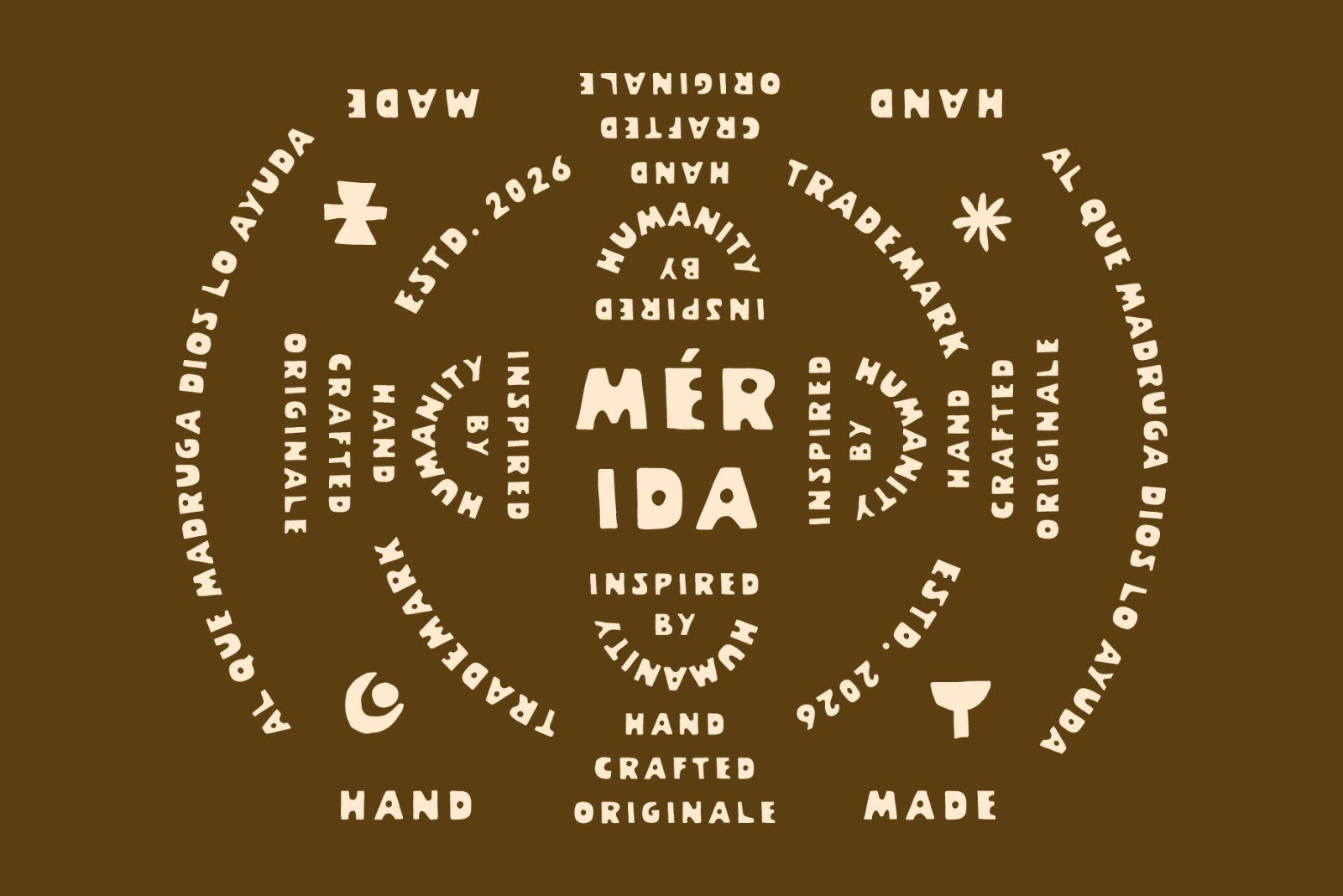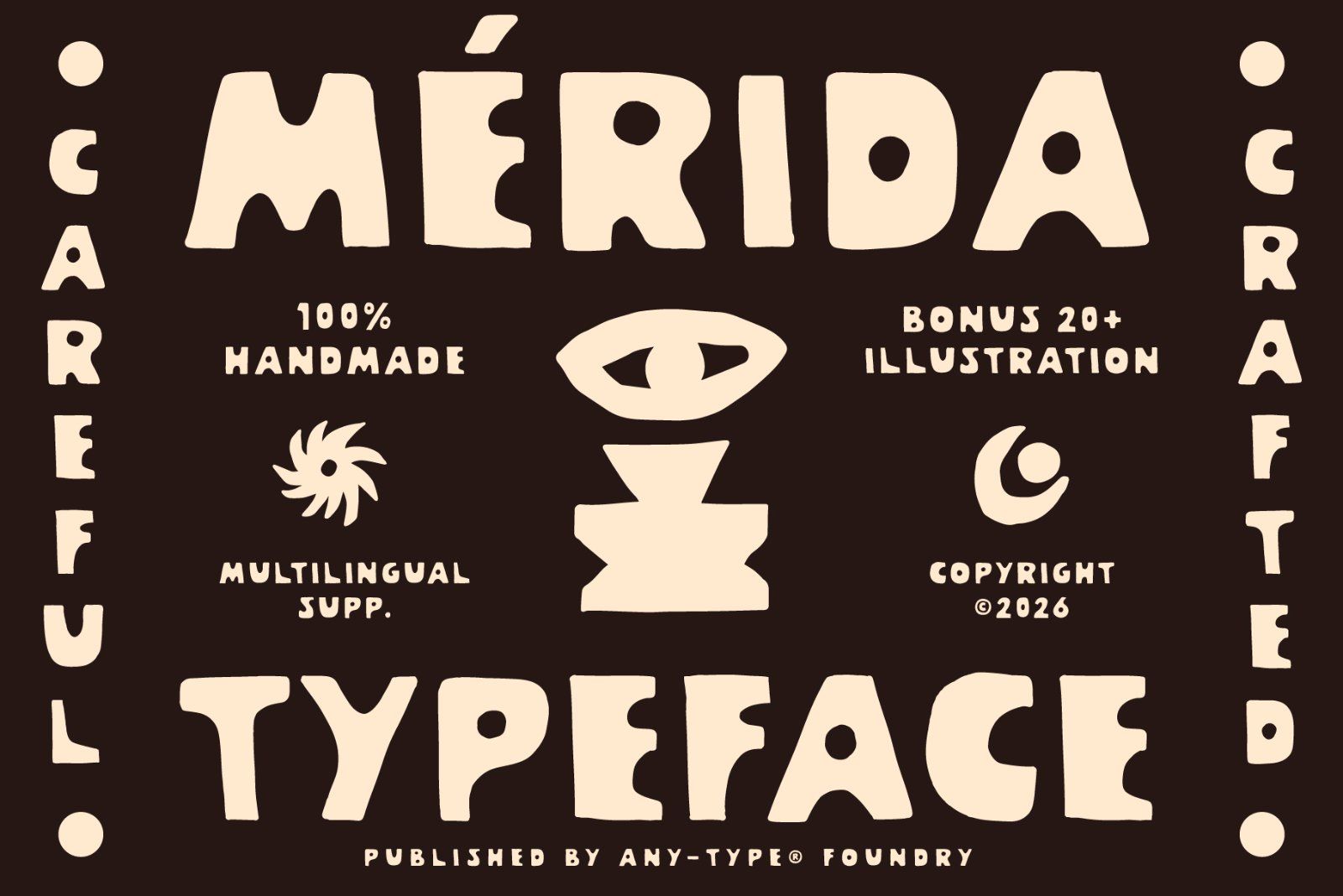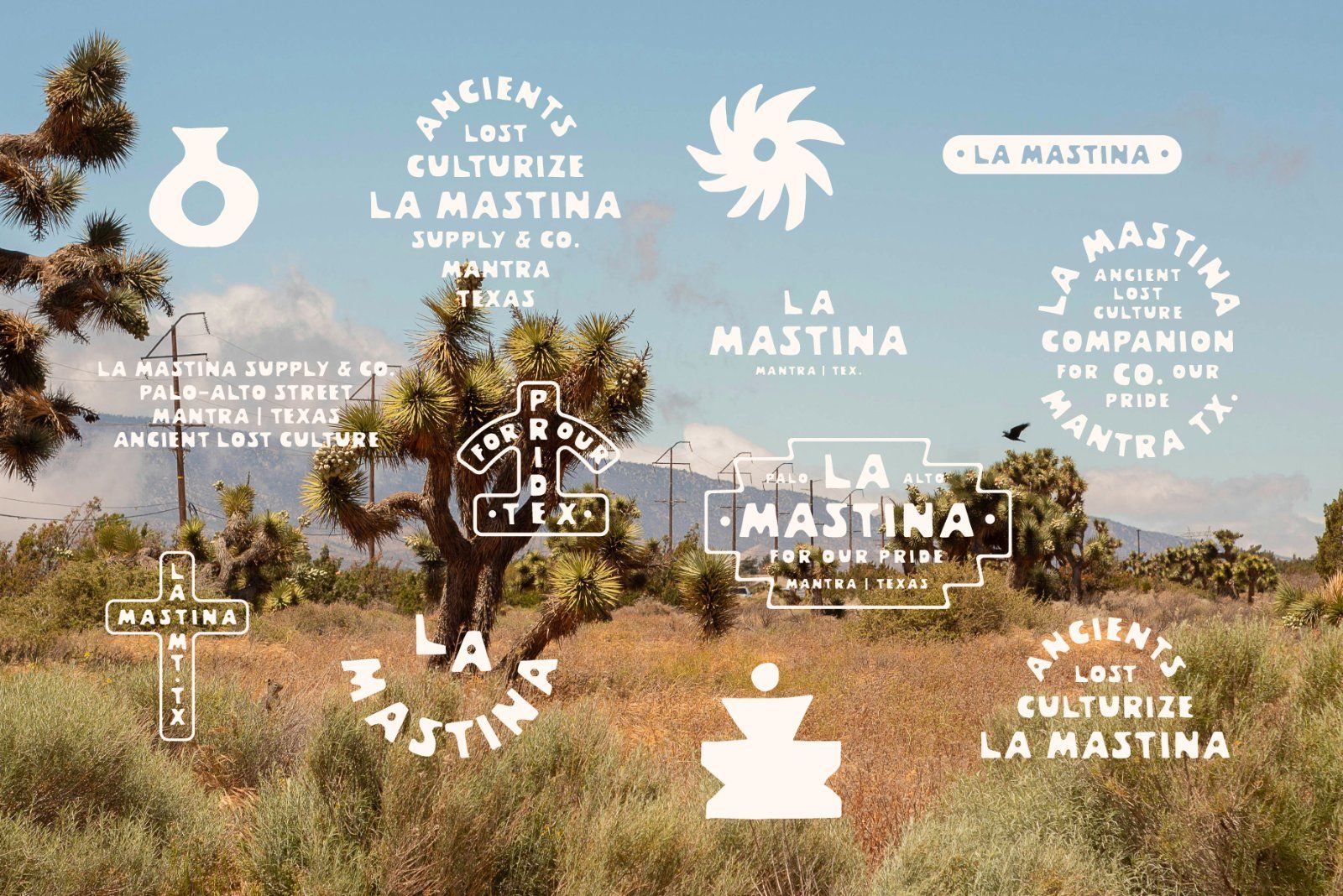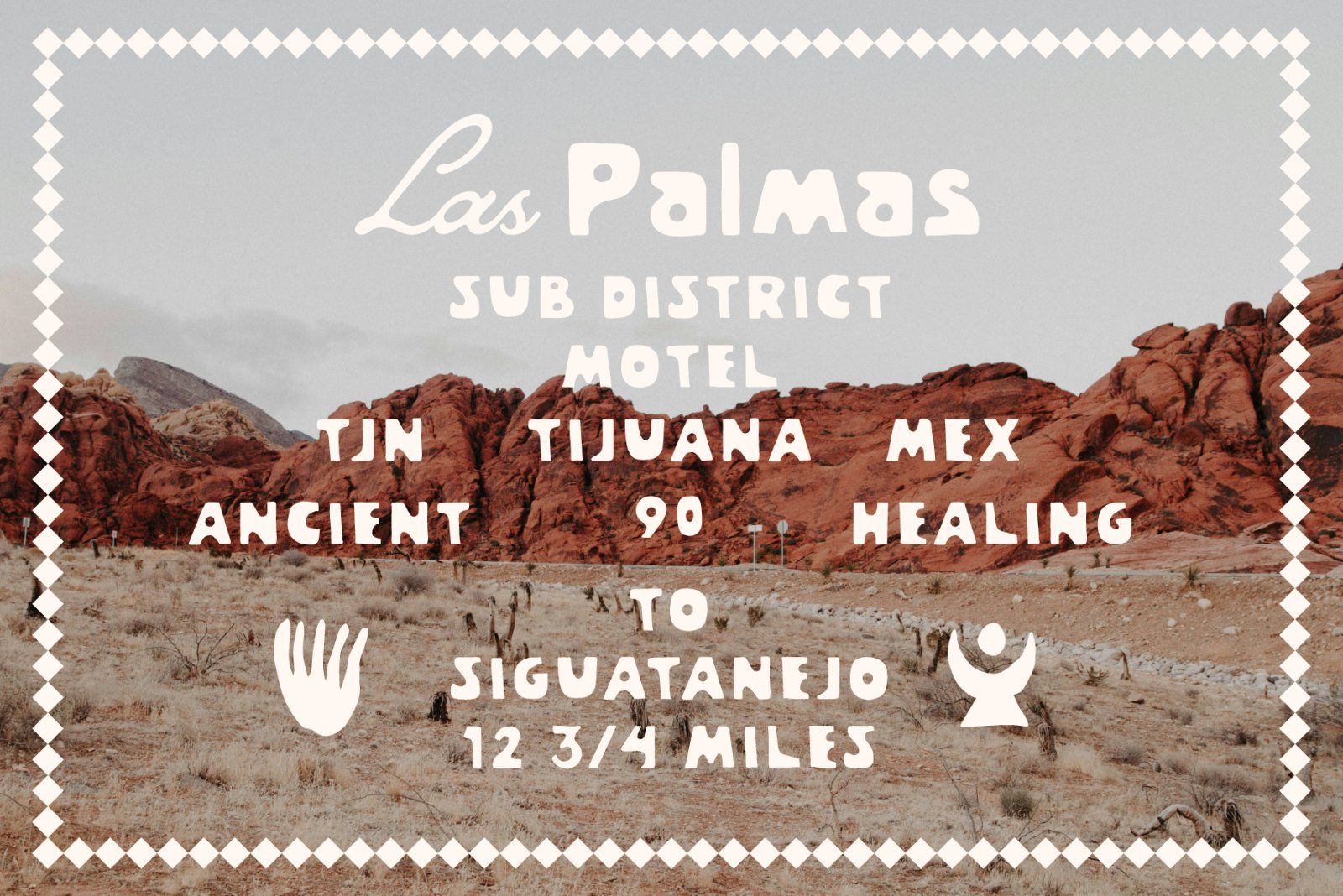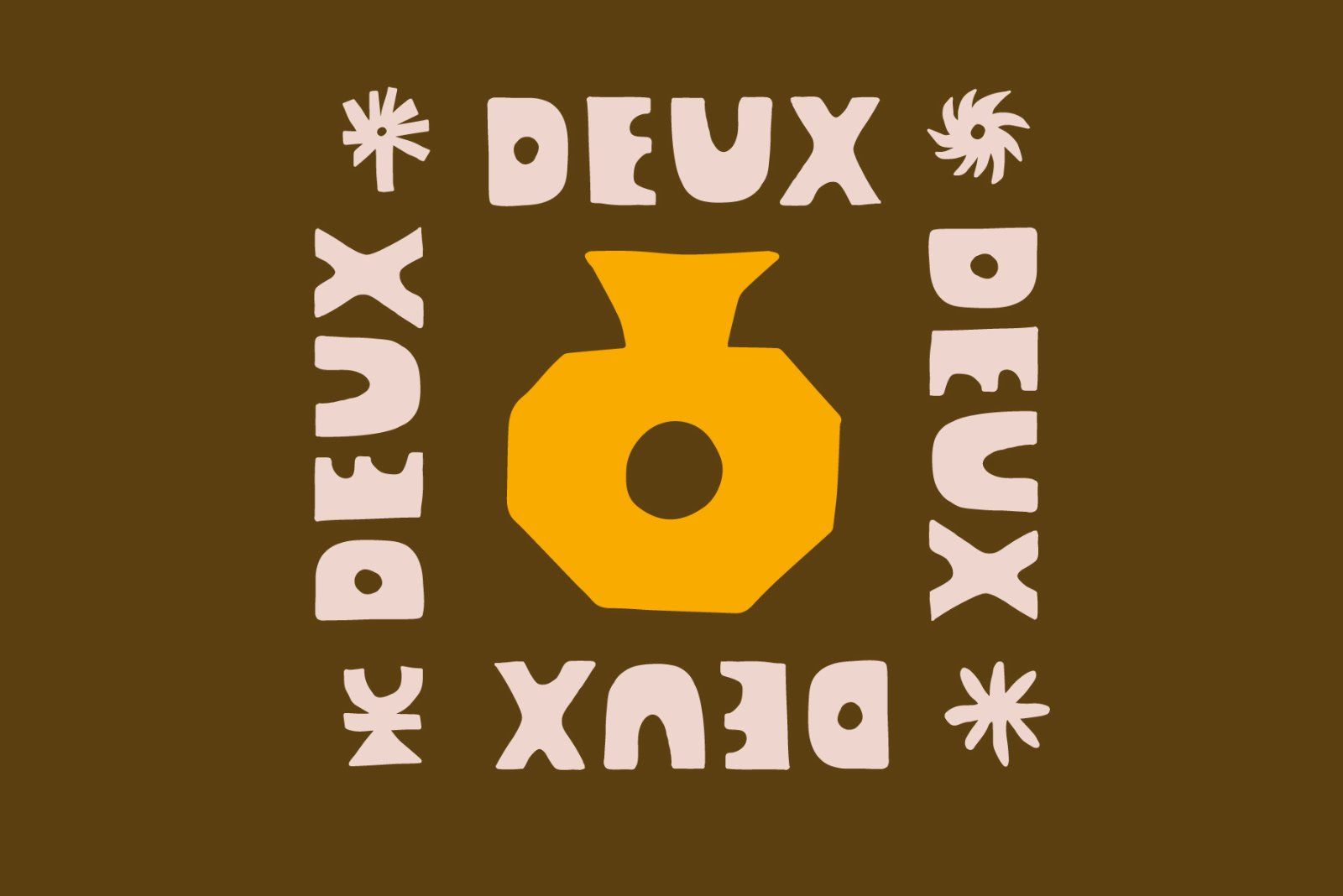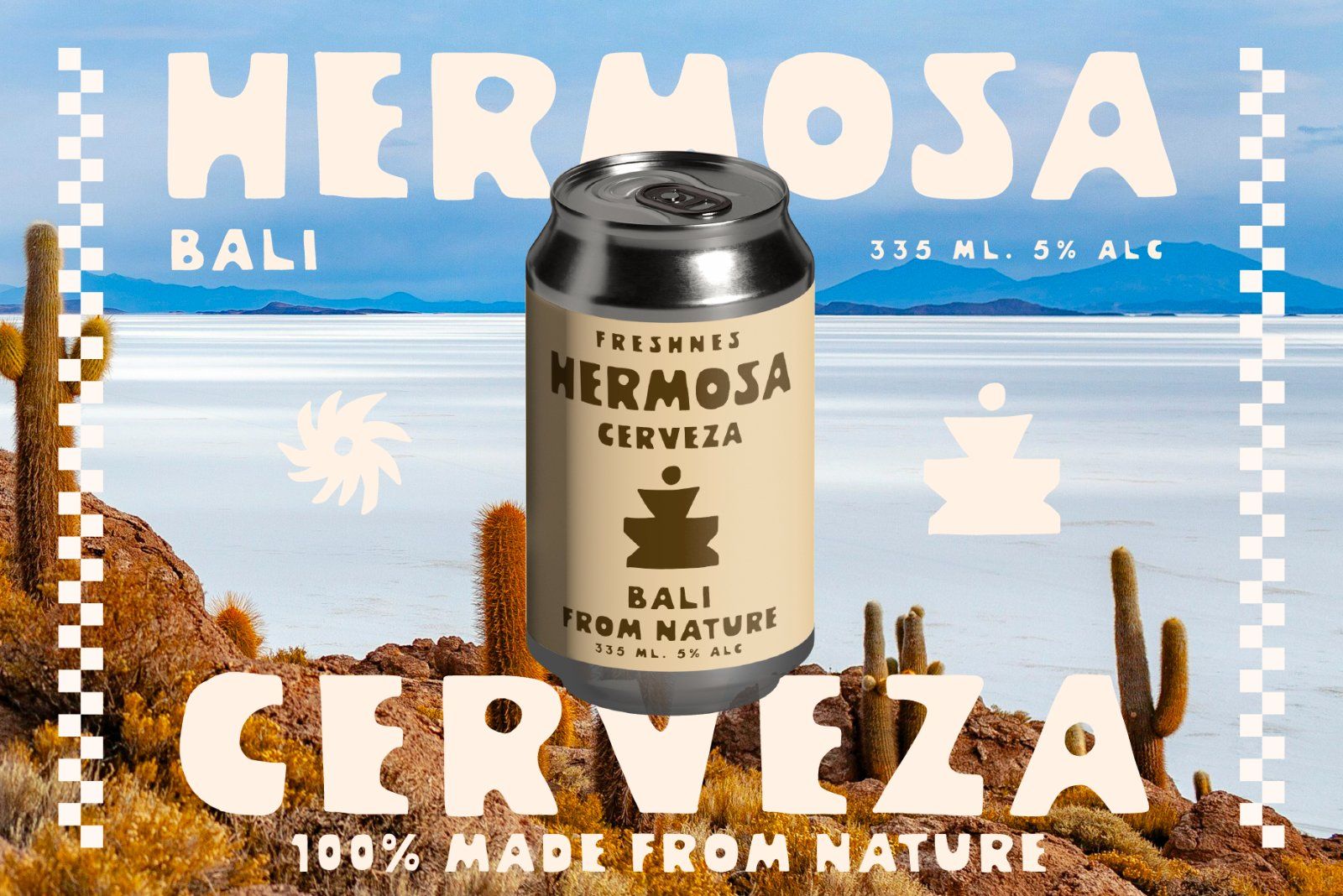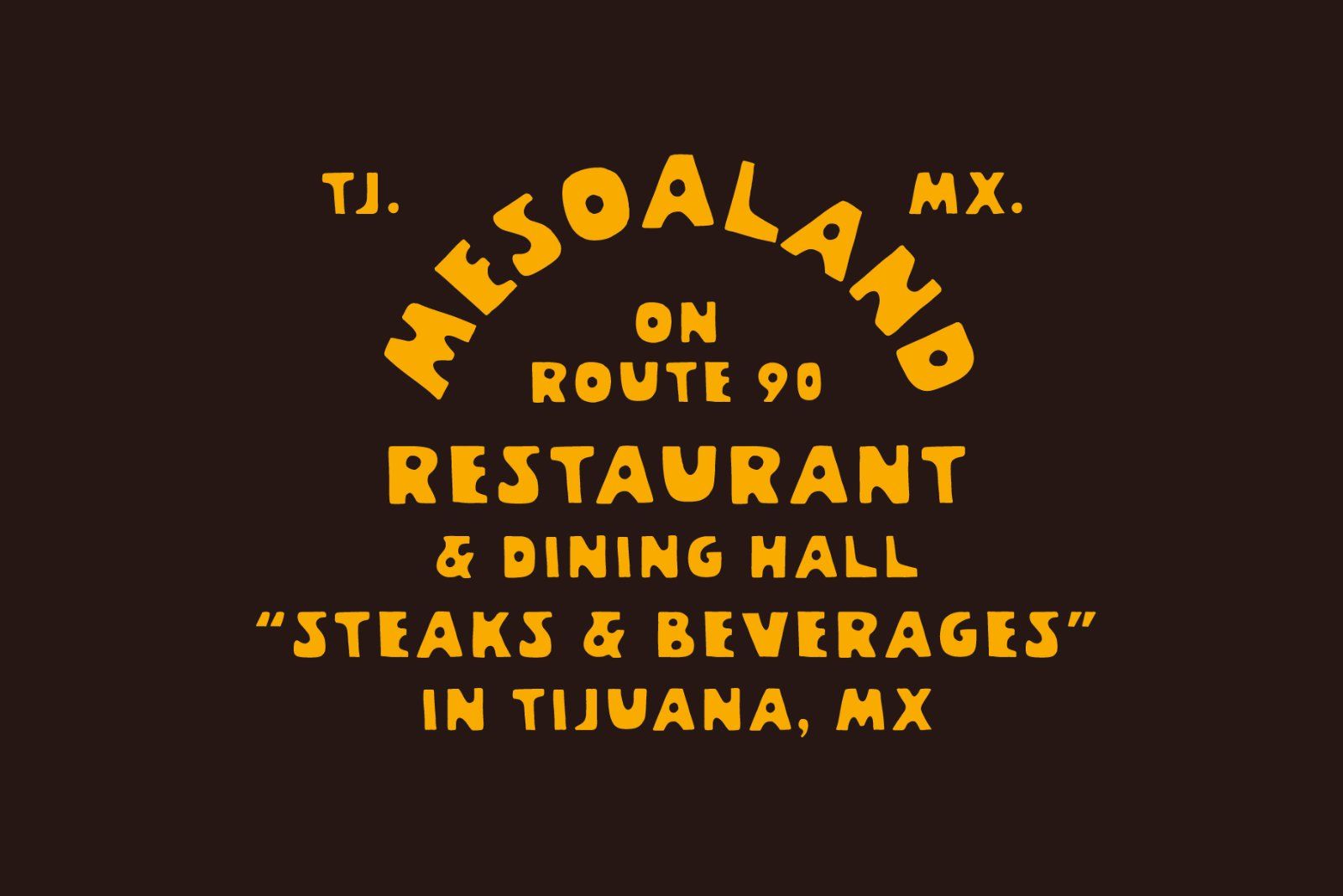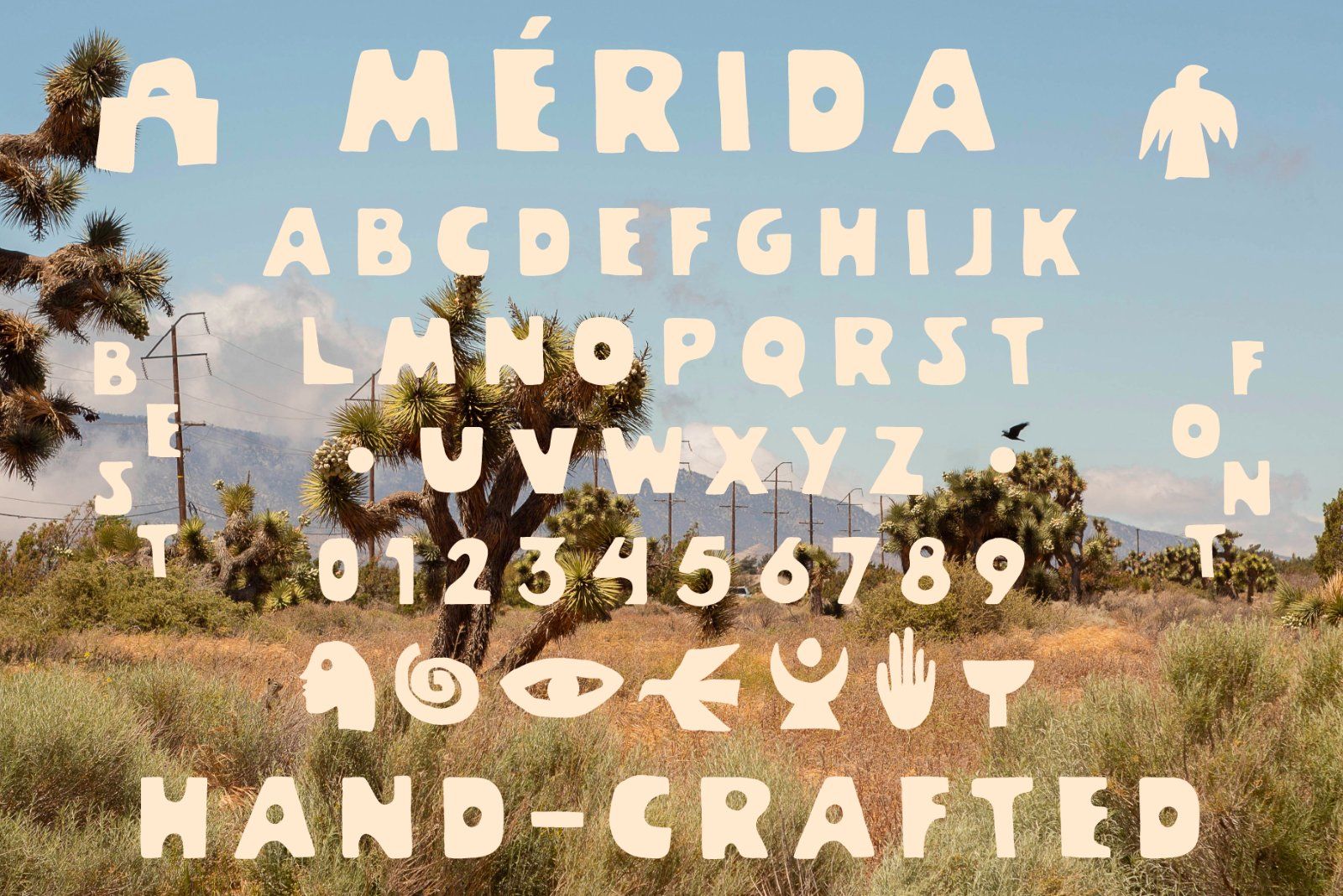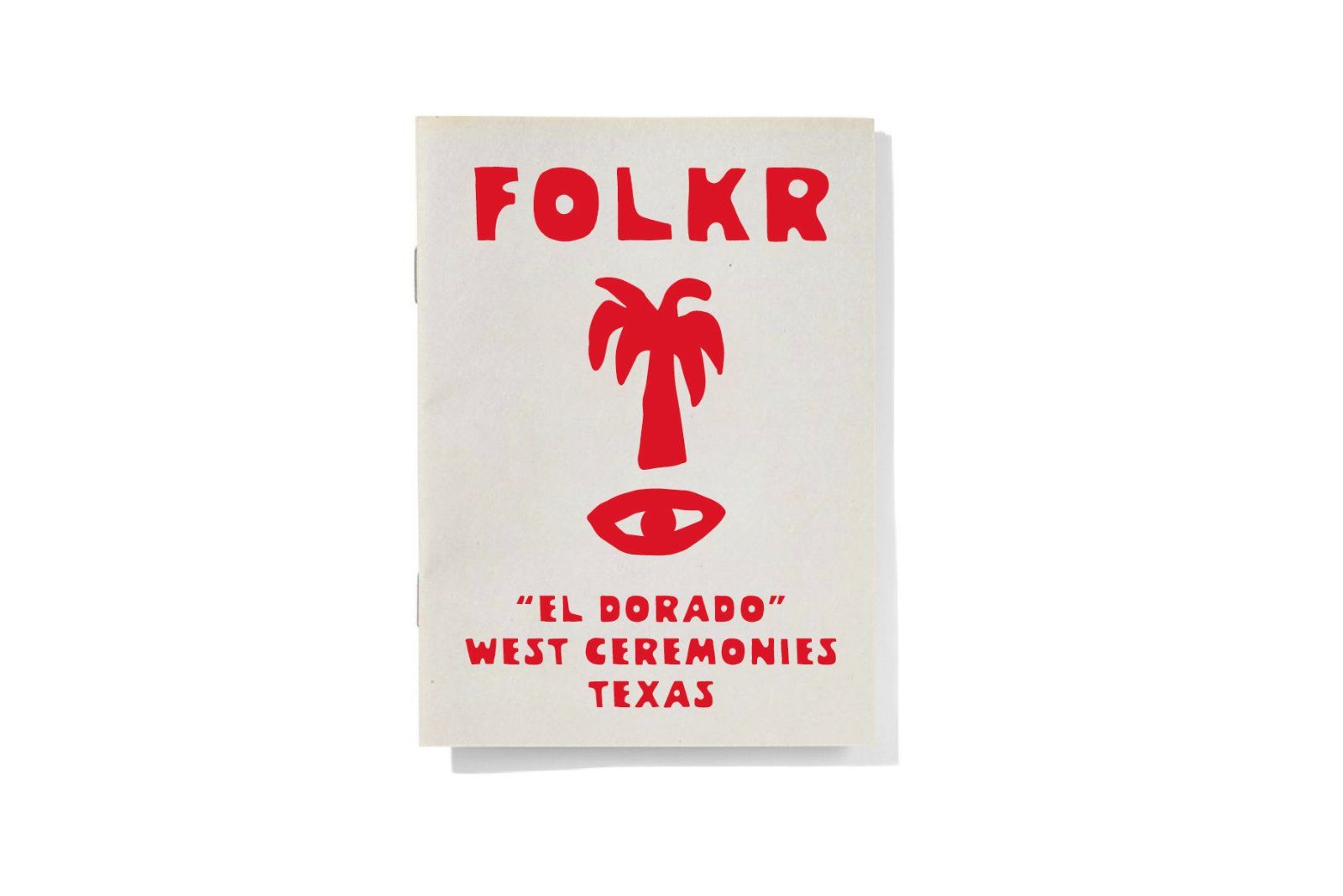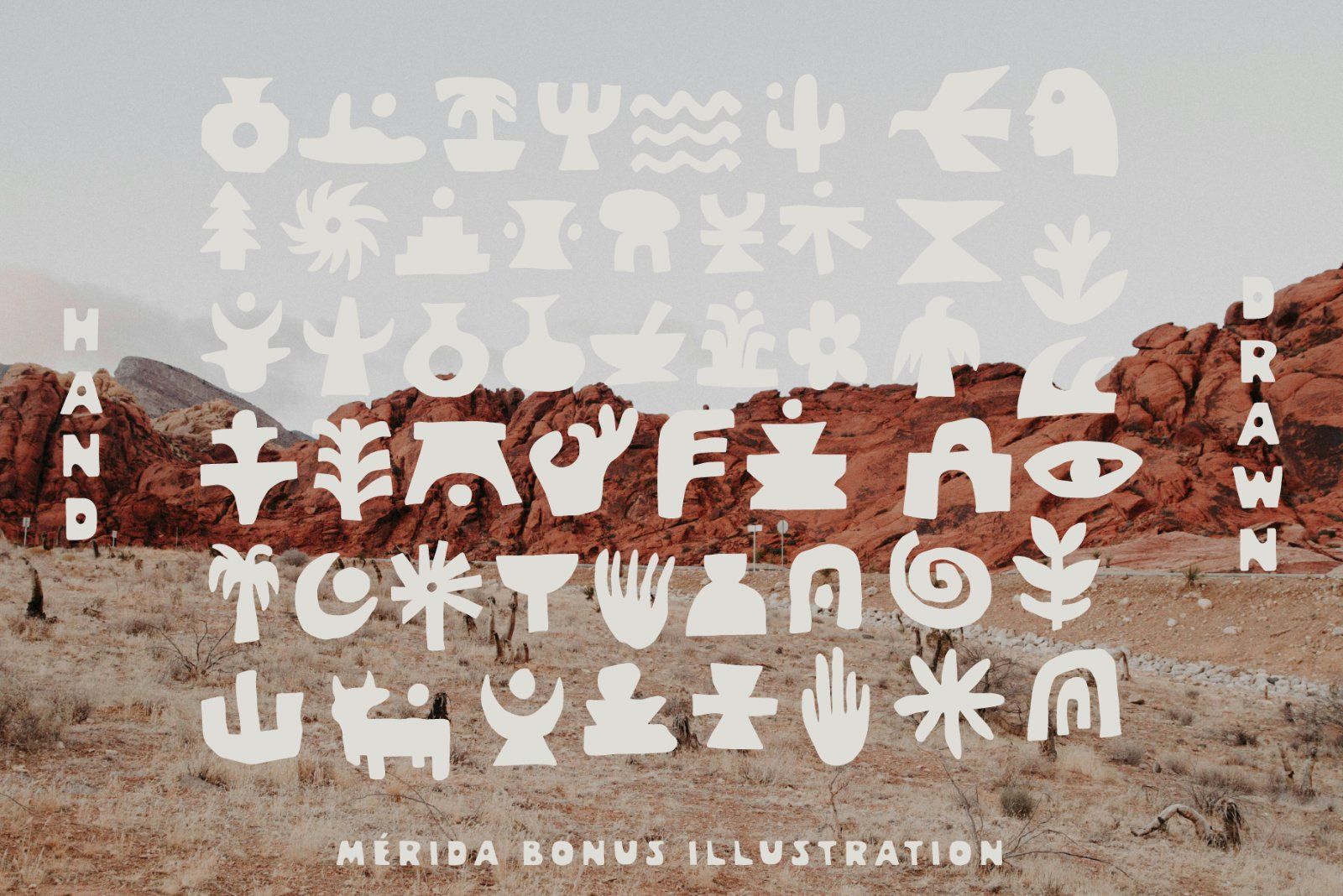
Merida is a bold, expressive handmade display typeface inspired by folk art, vintage signage, and playful organic shapes. Each letter is carefully crafted with imperfect curves and charming irregularities, giving your designs a warm, human, and artisanal feel.
Designed to stand out, Merida works beautifully for branding, packaging, posters, logos, apparel, album covers, editorial headlines, and creative projects that need personality and character. Its strong silhouettes and friendly proportions make it highly readable while still feeling unique and artistic.
This typeface comes with multilingual support and includes 20+ bonus hand-drawn illustrations, perfect for enhancing your layouts, labels, and brand assets. Whether you’re building a bohemian brand, retro concept, or modern craft aesthetic, Merida adds instant charm and confidence to your work.
If you’re looking for a typeface that feels authentic, handcrafted, and bold, Merida is your perfect creative companion.
Features
• Handmade display typeface
• Uppercase lowercase character set
Perfect for
Branding • Logos • Packaging • Apparel • Posters • Editorial • Social Media • Stickers • Creative Projects